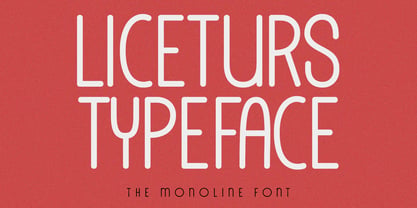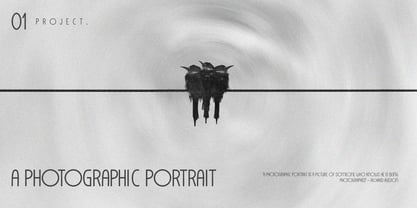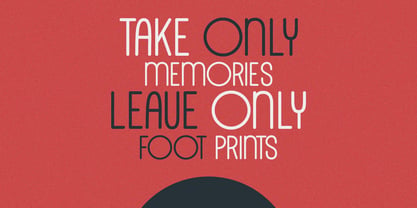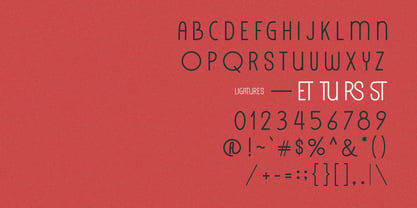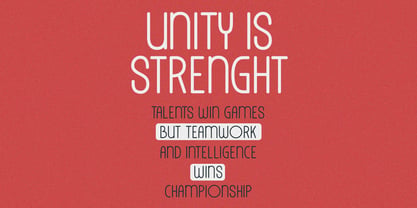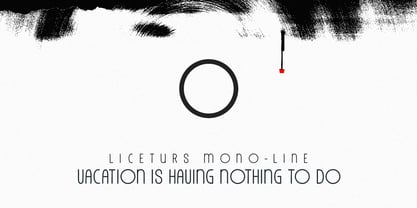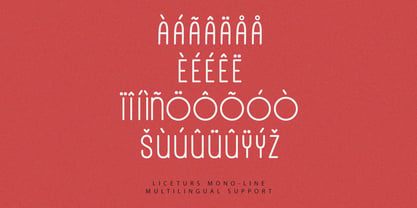
MC Liceturs
by Maulana Creative
The MC Liceturs Font Family was designed by Gilang Maulana and published by Maulana Creative. MC Liceturs contains 1 styles. More about this family
Liceturs is a rounded based sans font. Rounded stroke, fun character with a bit of ligatures. To give you an extra creative work. Liceturs font support multilingual more than 100+ language. This font is good for logo design, Social media, Movie Titles, Books Titles, a short text even a long text letter and good for your secondary text font with script or serif. Make a stunning work with Liceturs font.
Designers: Gilang Maulana
Foundry: Maulana Creative